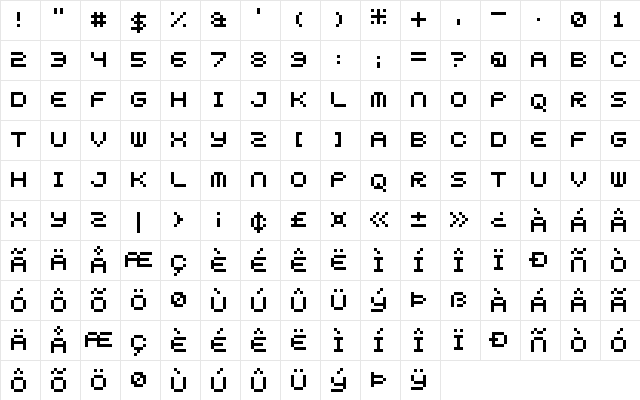
5squared pixel Regular Free Font
5squared pixel Regular
Designer: Piratype
Design Context for 5squared pixel
5squared pixel is rooted in pixel-grid construction, making it a natural fit for game UI, retro computing aesthetics, and digital nostalgia projects.
Pro Tip: Use 5squared pixel at sizes that align with its pixel grid for the sharpest rendering - scaling to non-integer multiples can introduce unwanted blur.